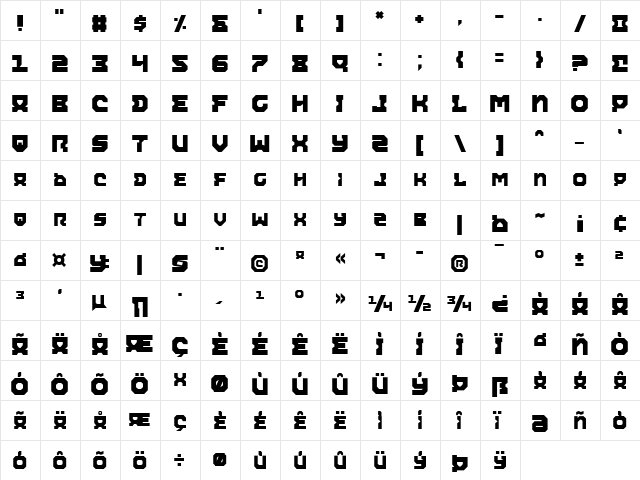
Airacobra Alt Alt
Design Context for Airacobra Alt Typeface
Airacobra Alt is a composed and adaptable typeface that performs quietly and consistently across a wide range of design contexts.
Pro Tip: Use Airacobra Alt in both headline and body roles to test its range before committing to a single application.